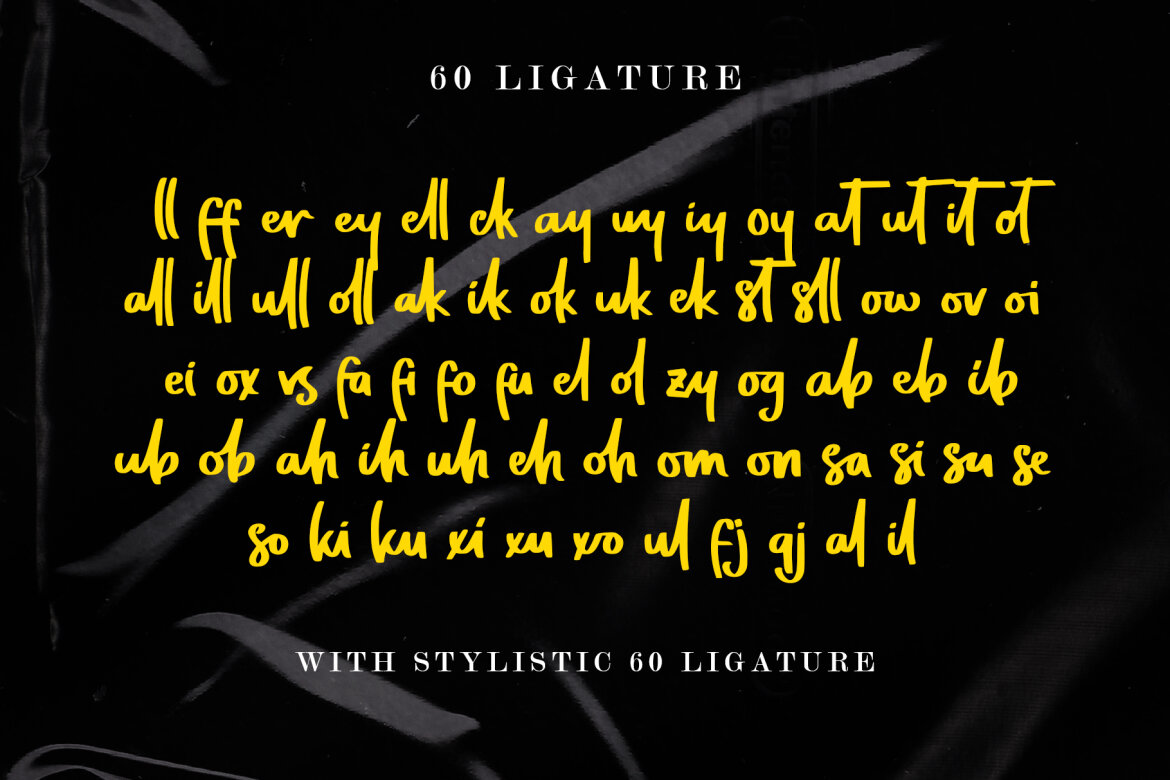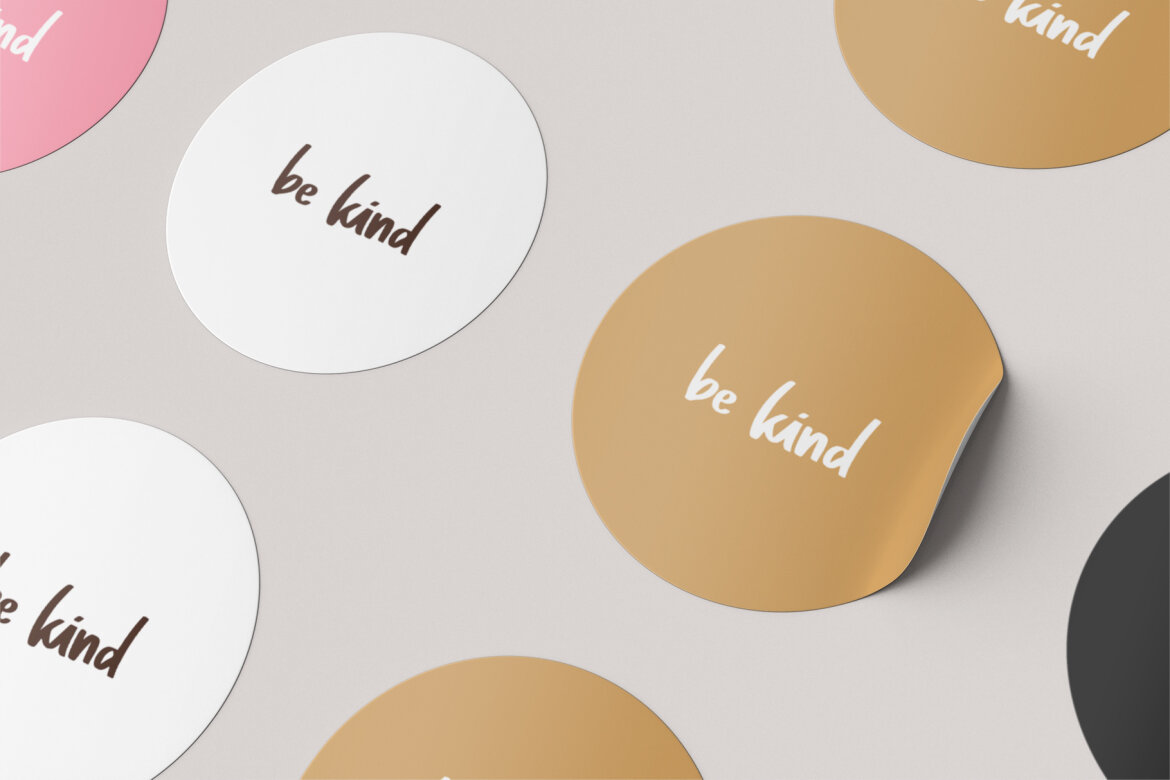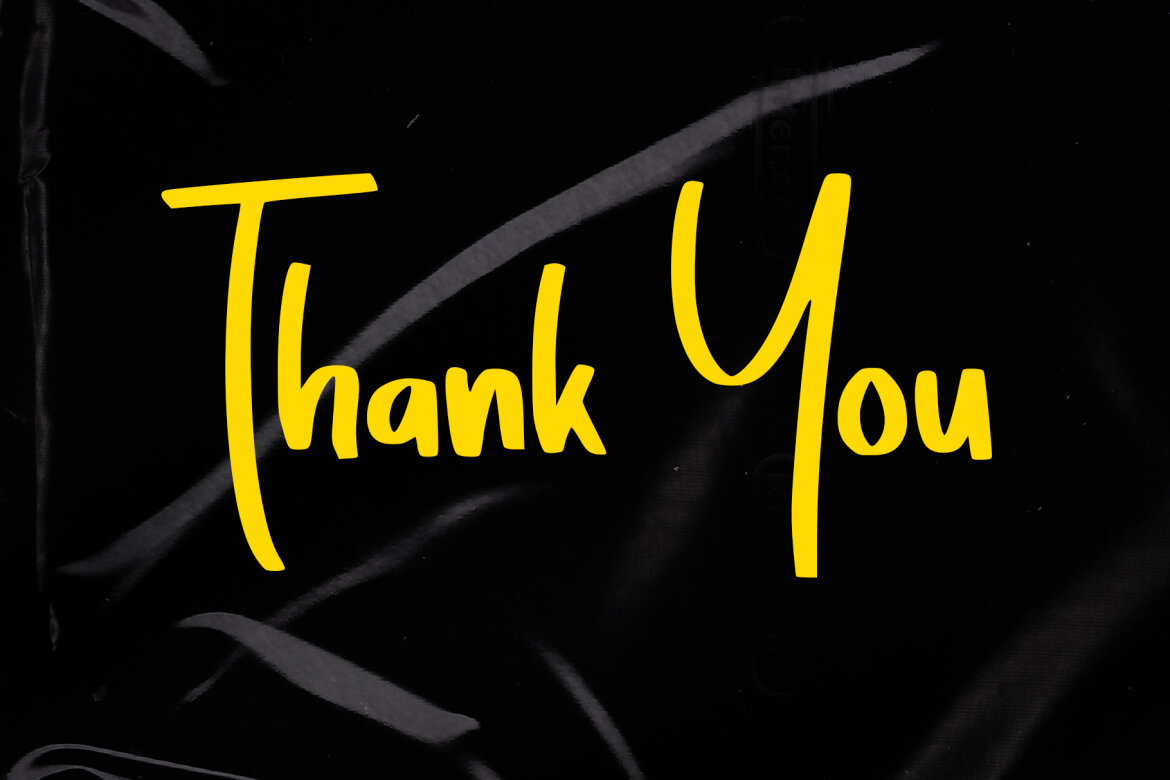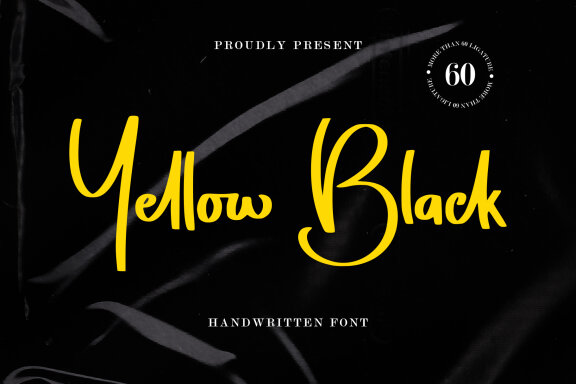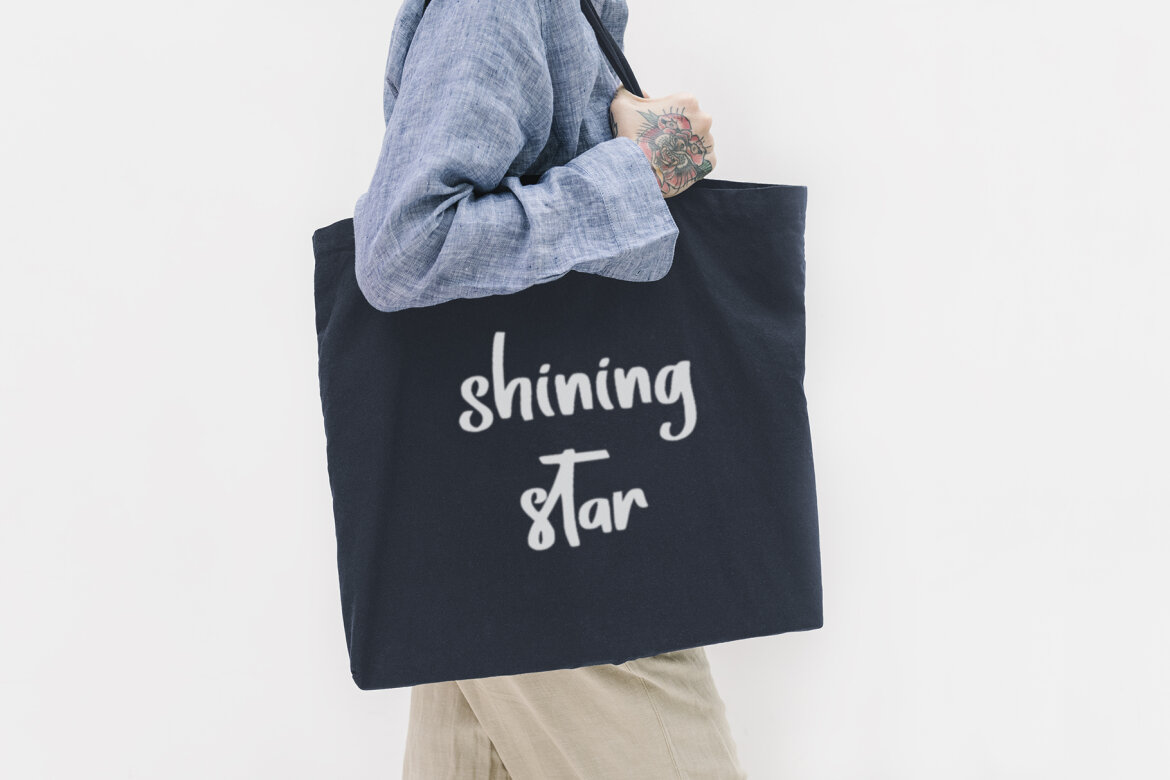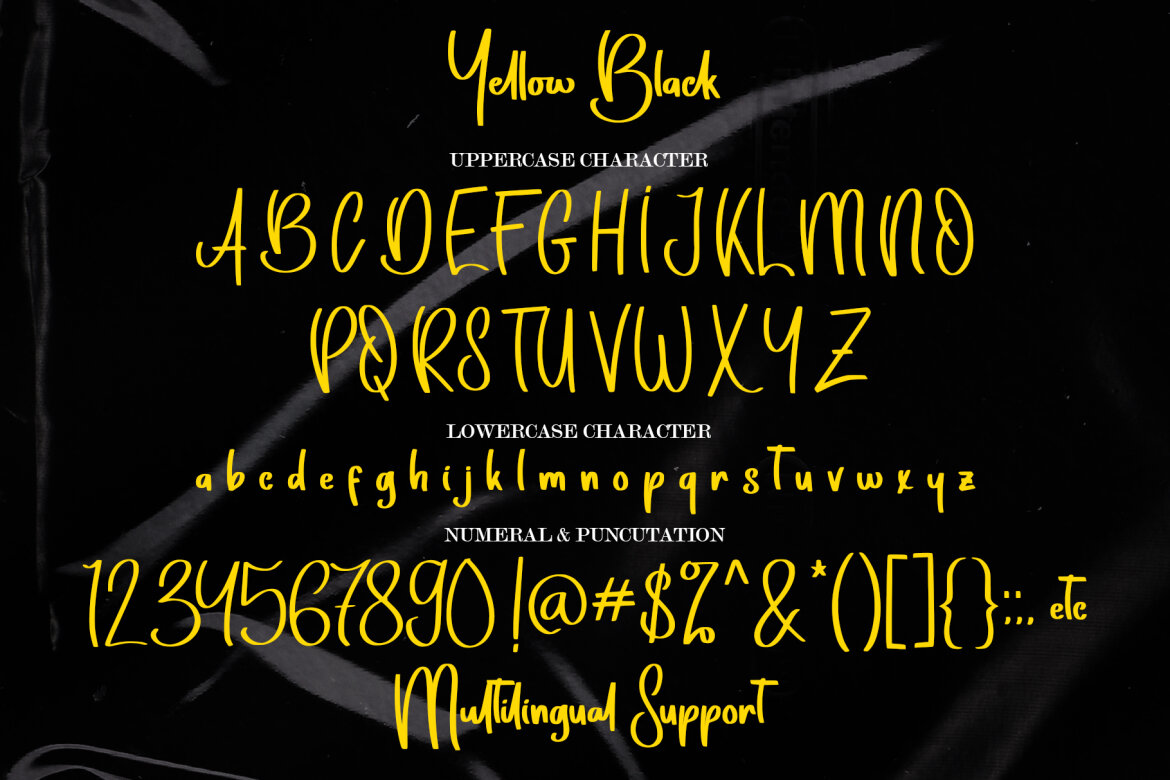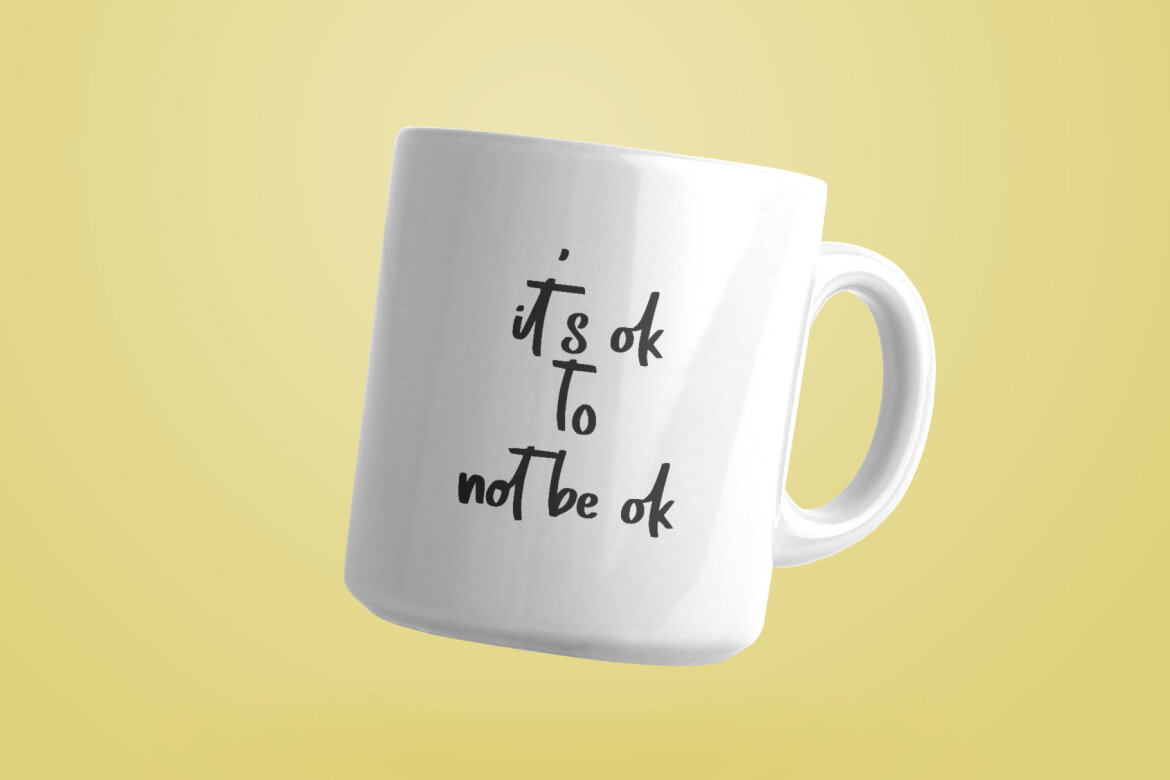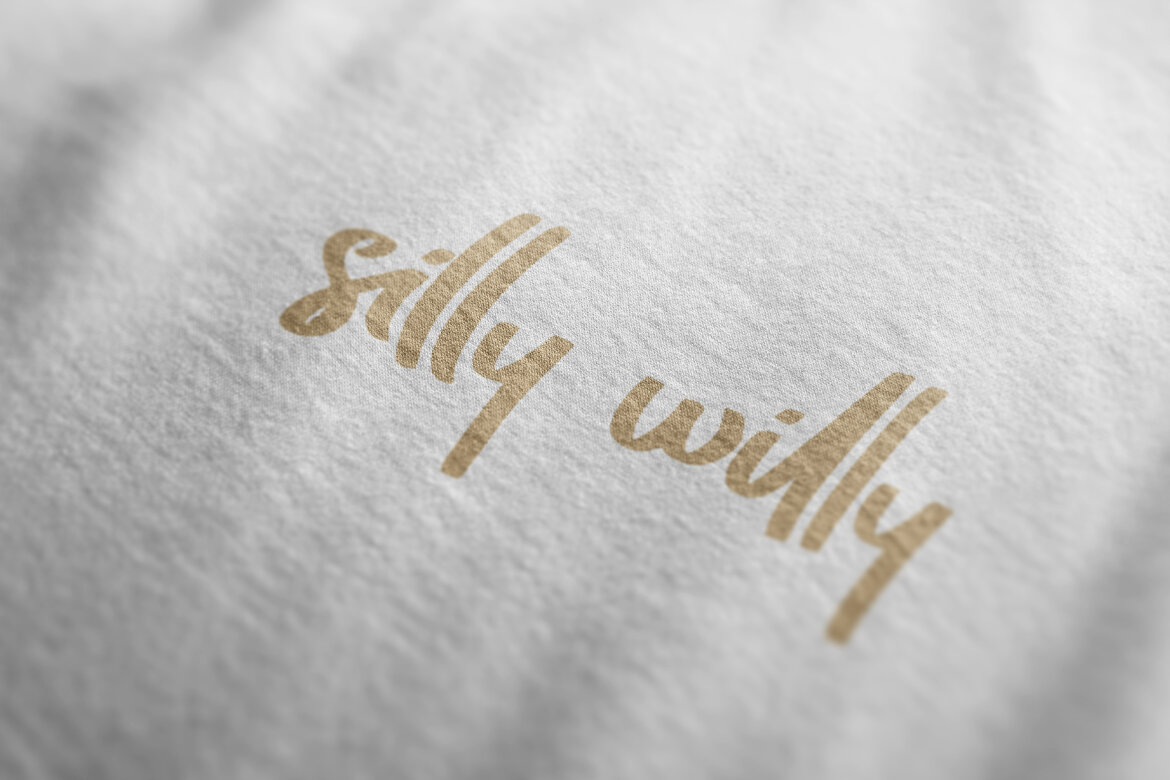
Yellow Black FREE Font
Yellow Black feels equally charming and elegant. It looks stunning on wedding invitations, thank you cards, quotes, greeting cards, logos, business cards and every other design which needs a handwritten touch. It is also PUA encoded which means you can access all of the glyphs and ligatures with ease!
• support multilingual; ä ö ü ä ö ü ß ¿ ¡